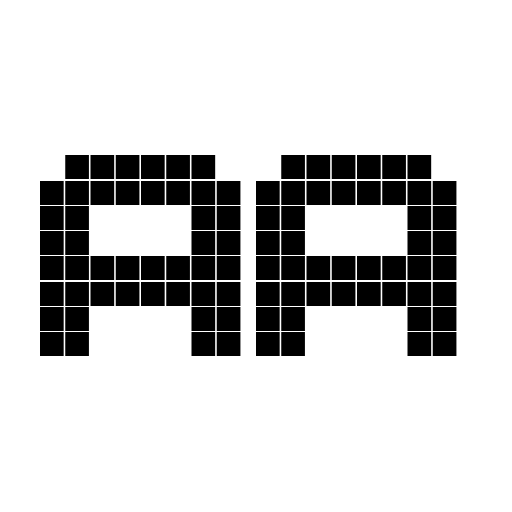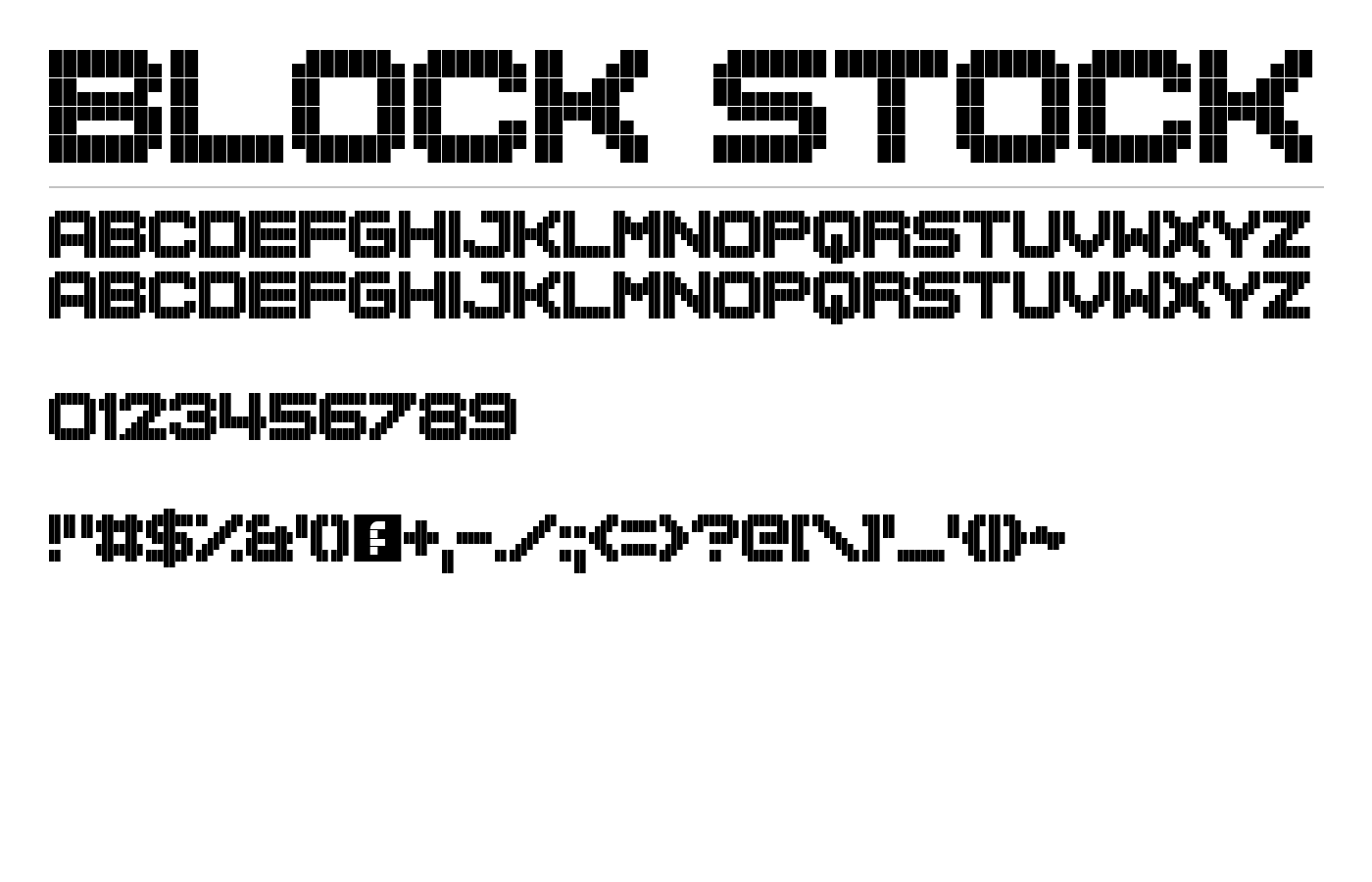
Block Stock is a bold, geometric sans serif font created from pixel-like blocks, giving it a retro, digital, and tech-inspired vibe. Its uniform weight and compact structure make it ideal for impactful headlines, logos, and digital-themed designs that require a strong, modern personality with a hint of vintage pixel art. This font works best in settings where clarity and a distinctive, blocky style are needed to capture attention and evoke a sense of digital or industrial aesthetics.
Block Stock Font
About Block Stock Font
| Font family | Block Stock Font |
| Designer | NAL |